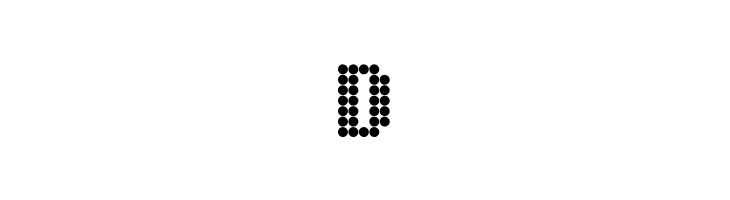
( Fonts by imagex )
A bold, decorative font with vintage Western-inspired elements and arrow-like serifs.
( Fonts by Espen Morten Kvalheim - www.unbornchikken.com )
A dot matrix font with a retro digital display aesthetic.
A tall, narrow font with clean lines and a modern aesthetic.
( Fonts by Paul Reid - tracertong.co.uk )
A tall, narrow font with clean lines and a modern, elegant style.
( Fonts by Paul Reid - tracertong.co.uk )
A sleek, modern italic font with elongated, condensed letterforms.
A dynamic handwritten font with fluid strokes and playful curves.
A decorative and cryptic set of symbols with eye-like geometric designs.